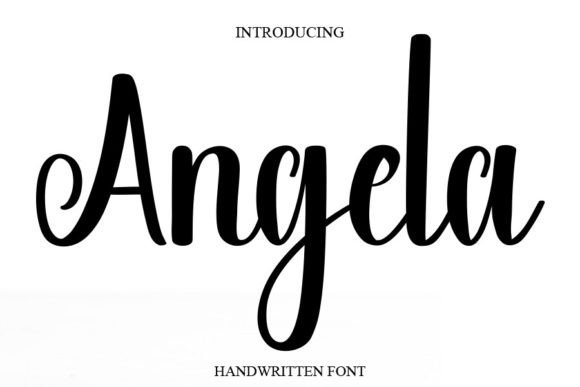
The Perfect Handwritten Font for Your Next Project: Angela Font
I still remember the time I was working on a greeting card project for a client’s anniversary. I had all the design elements ready, but I was stuck on finding the perfect font. I wanted something simple, yet elegant; something that would convey the warmth and love of the occasion. That’s when I stumbled upon Angela Font. It was love at first sight! 💕
Angela is a simple handwritten font that has become a staple in my design toolkit. Its versatility and natural feel make it perfect for a wide range of applications, from greeting cards to headlines. In this article, I’ll share my honest review of Angela Font, provide a practical guide on how to use it, and explore similar fonts and alternatives.
• ✅ Simple and elegant design that works well for various projects
• ✅ Versatile and adaptable to different design styles
• ✅ Easy to pair with other fonts for a cohesive look
• ⚠️ Limited character set compared to other fonts
• ⚠️ May not work well for very formal or corporate designs
The Story Behind Angela Font
Angela Font was designed with the intention of creating a simple, yet elegant handwritten font. The designer aimed to create a font that would be versatile and adaptable to different design styles, while also conveying a sense of warmth and personality.
Author cans studio
Q: What is Angela Font?
Angela Font is a simple handwritten font designed for a wide range of applications, from greeting cards to headlines.